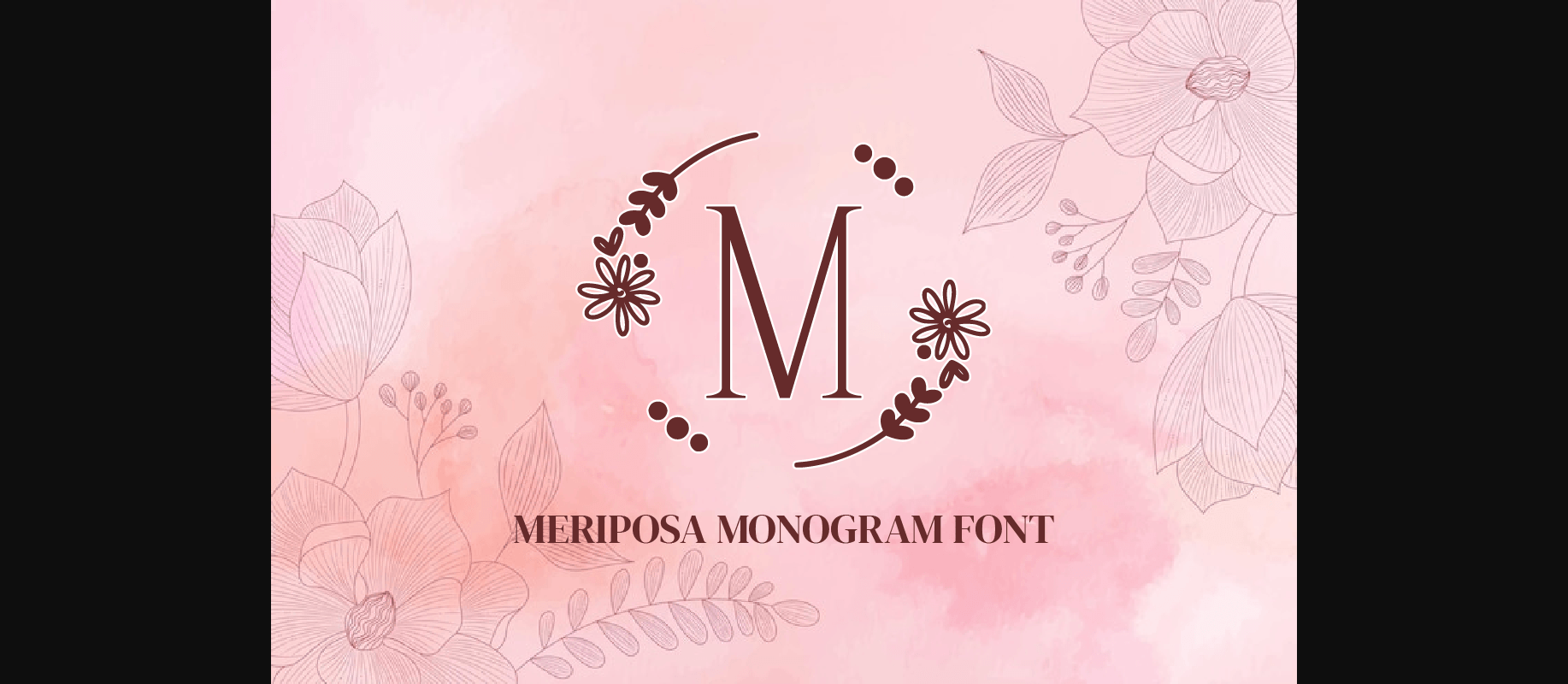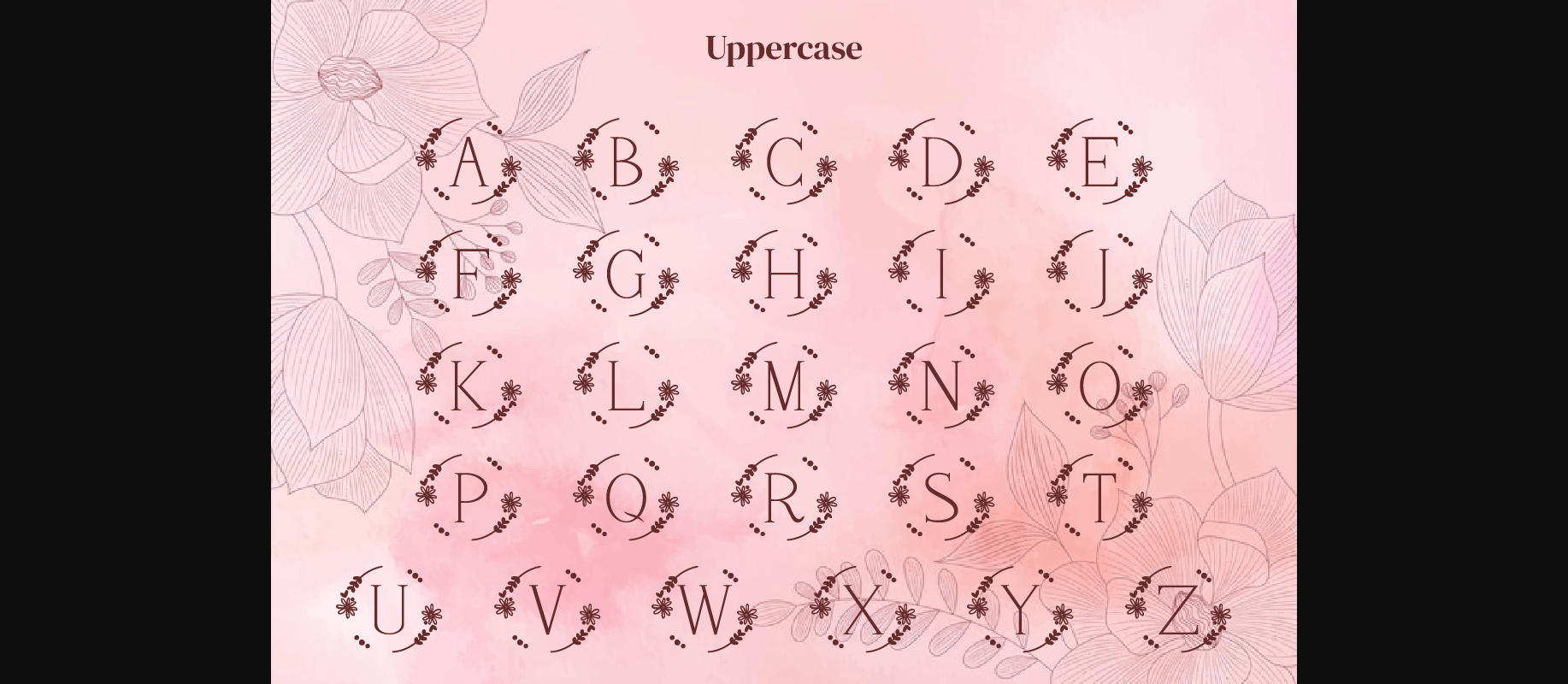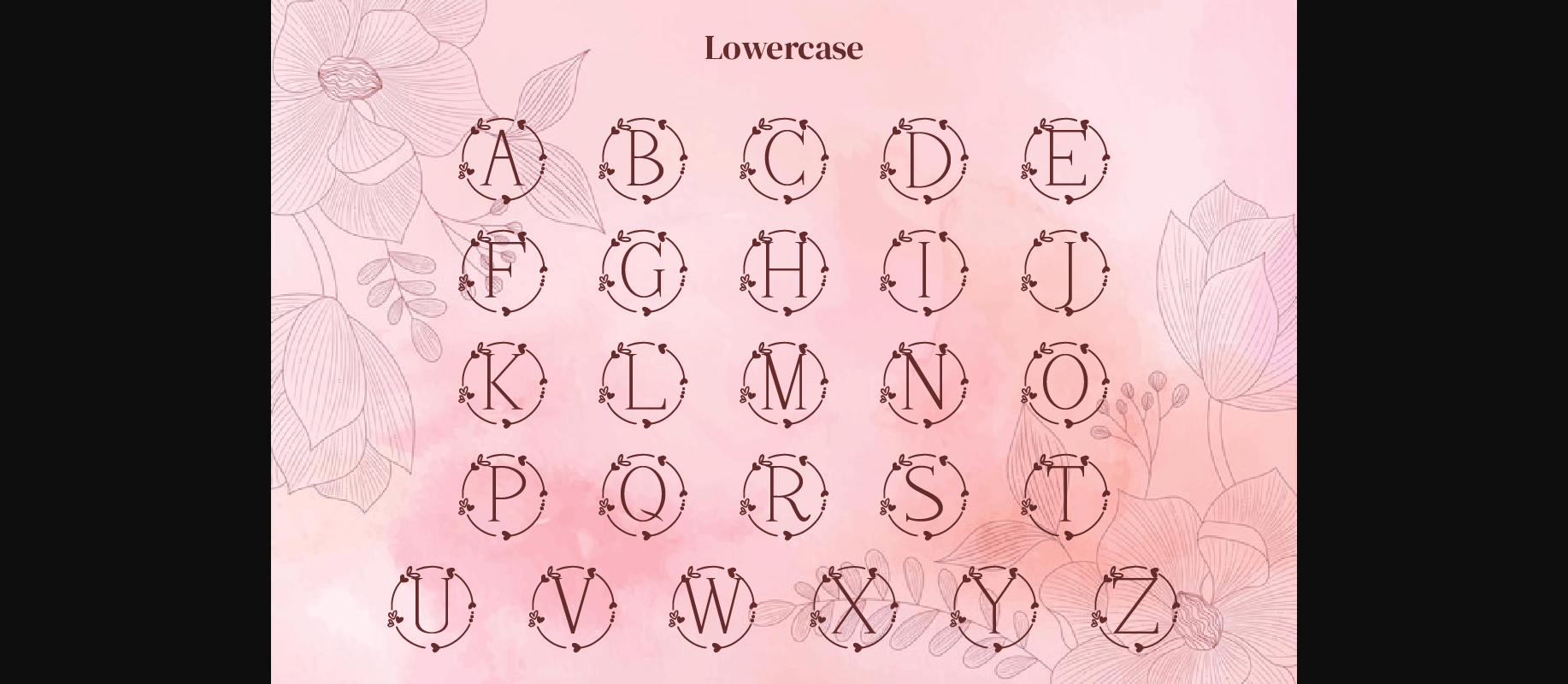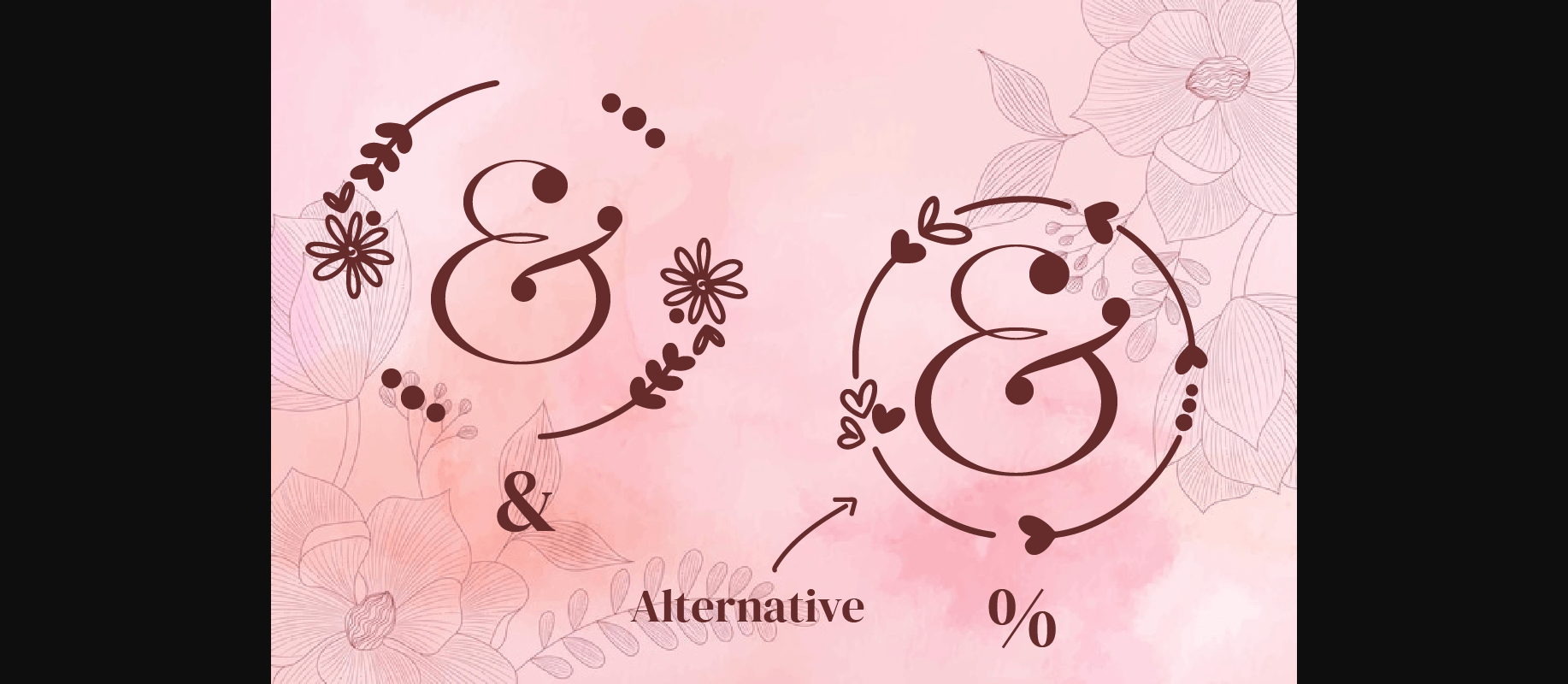
Meriposa is a cute monogram decorative font. Fall in love with its authentic feel and use it to create gorgeous wedding invitations, beautiful stationary art, engaging social media posts, and cute greeting cards.